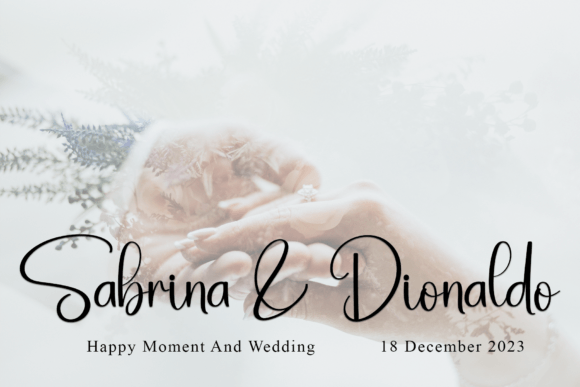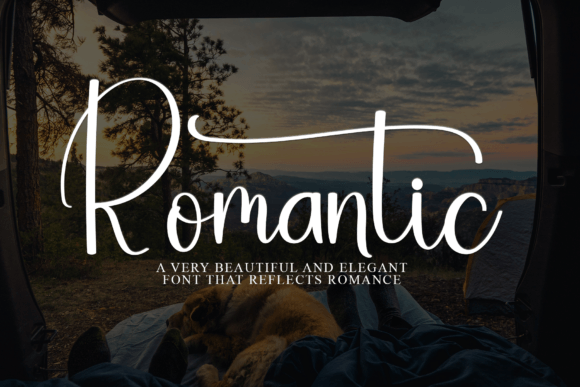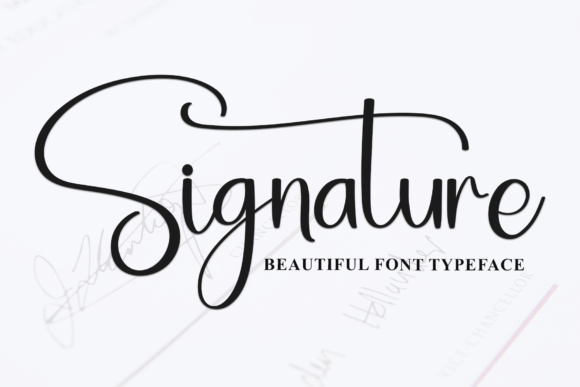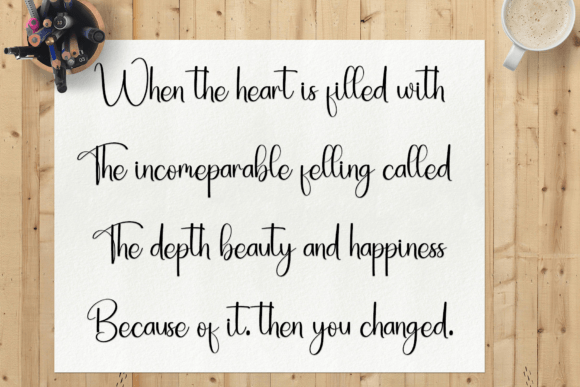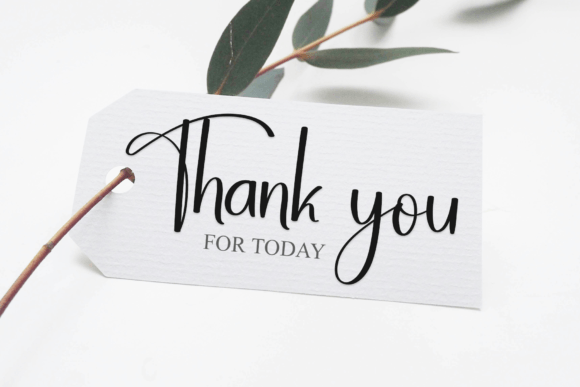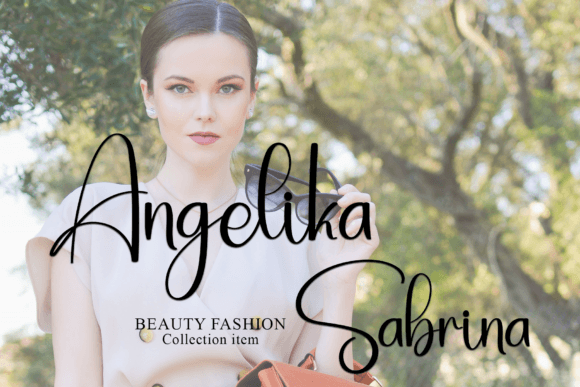
Introduction to Handwriting Samantha Font Font
Fonts play a crucial role in design, and the Handwriting Samantha Font font is a typeface that brings both character and versatility to any project. Whether you’re working on a branding project, a website, or a print design, the Handwriting Samantha Font font offers a unique style that can elevate your work.
Handwriting Samantha is a delicate, elegant, and flowing handwritten font.
It has beautiful and well-balanced characters and as a result, it matches a wide pool of designs Add it to your most creative ideas and notice how it makes them come alive.
Key Features of Handwriting Samantha Font Font
Why Choose Handwriting Samantha Font Font?
The Handwriting Samantha Font font is more than just a typeface – it’s a design tool that helps you communicate your message with style and clarity. Its unique character set and versatile design make it suitable for a wide range of applications, from elegant invitations to bold headlines.
With its carefully crafted letterforms and balanced proportions, the Handwriting Samantha Font font ensures readability and visual appeal across all mediums.
What makes Handwriting Samantha Font font special?
The Handwriting Samantha Font font stands out with its unique design, exceptional readability, and versatility across various design applications.